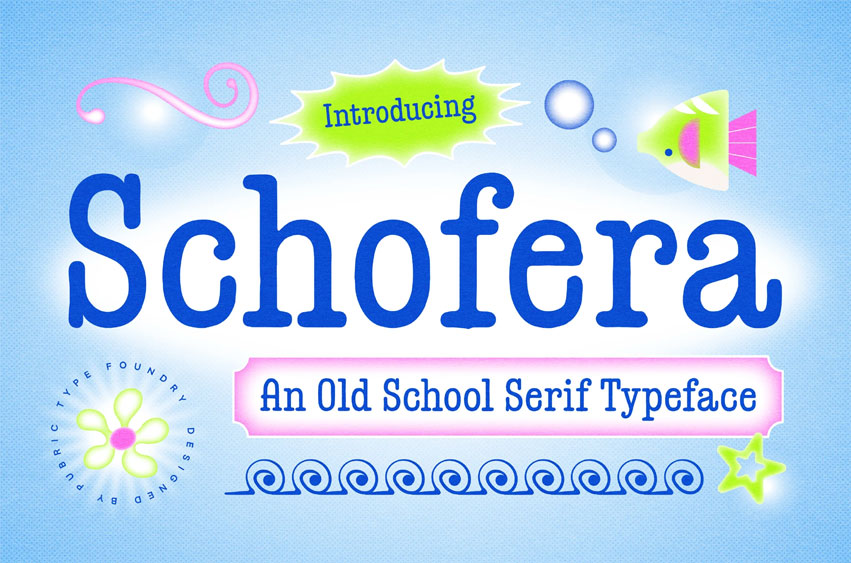
Schofera Font
Schofera Font is a serif font with playful, unique letterforms and a Y2K-inspired style. Great for body text, posters, logos, or designs that aim to be visually striking.
Ideal for headlines, logos, editorials, packaging, quotes, films, games, album covers, books, and promotional materials. This font ensures your design stands out in any setting.